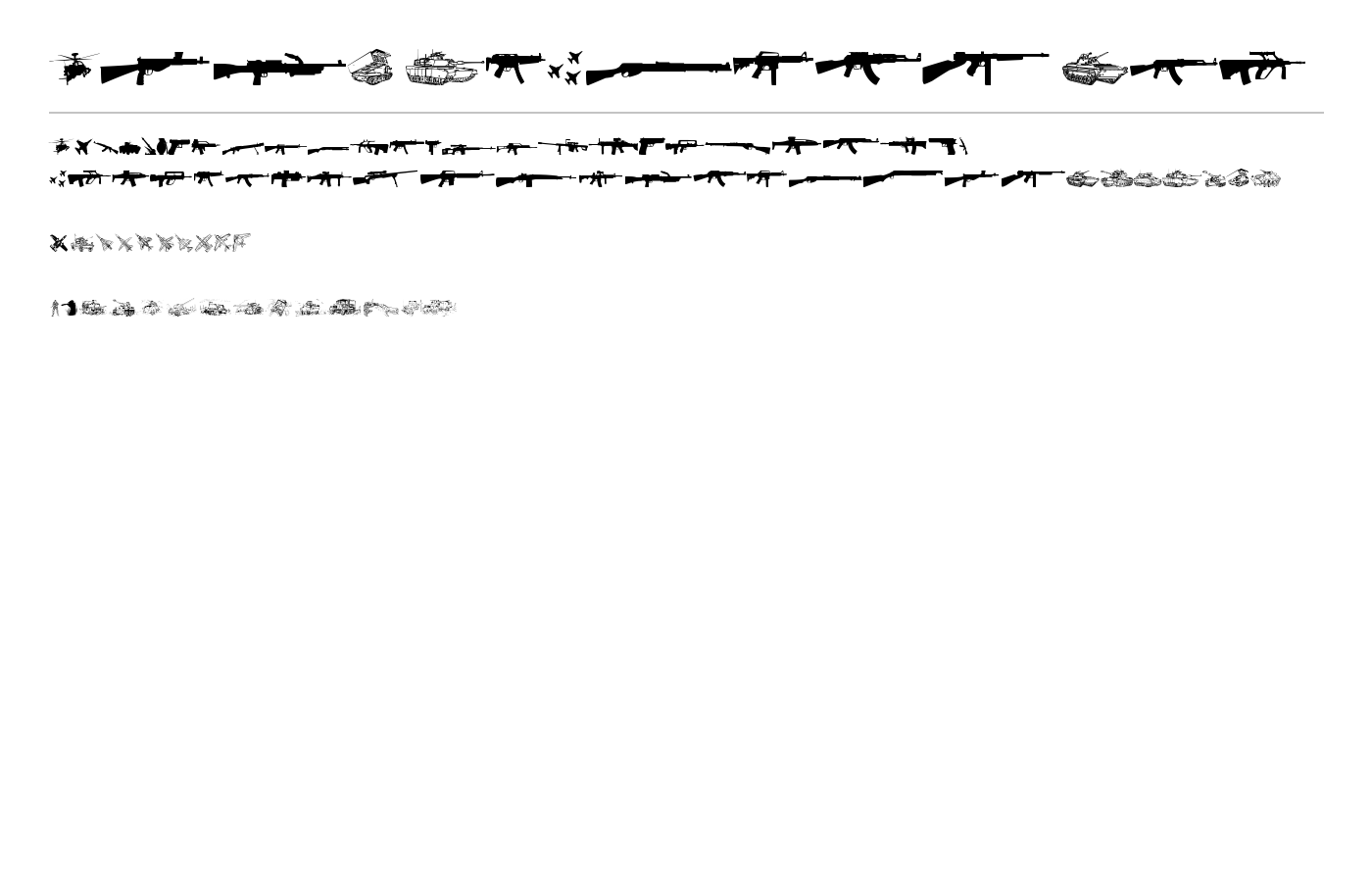
Army Weapons TFB is a decorative symbol font featuring detailed silhouettes of military equipment, including guns, tanks, helicopters, and planes. This font is bold and highly graphic, designed to make a strong visual impact rather than for text readability. It works best in military-themed projects, posters, or graphic designs where an aggressive, tactical, and action-oriented mood is desired.
Army weapons tfb Font
About Army weapons tfb Font